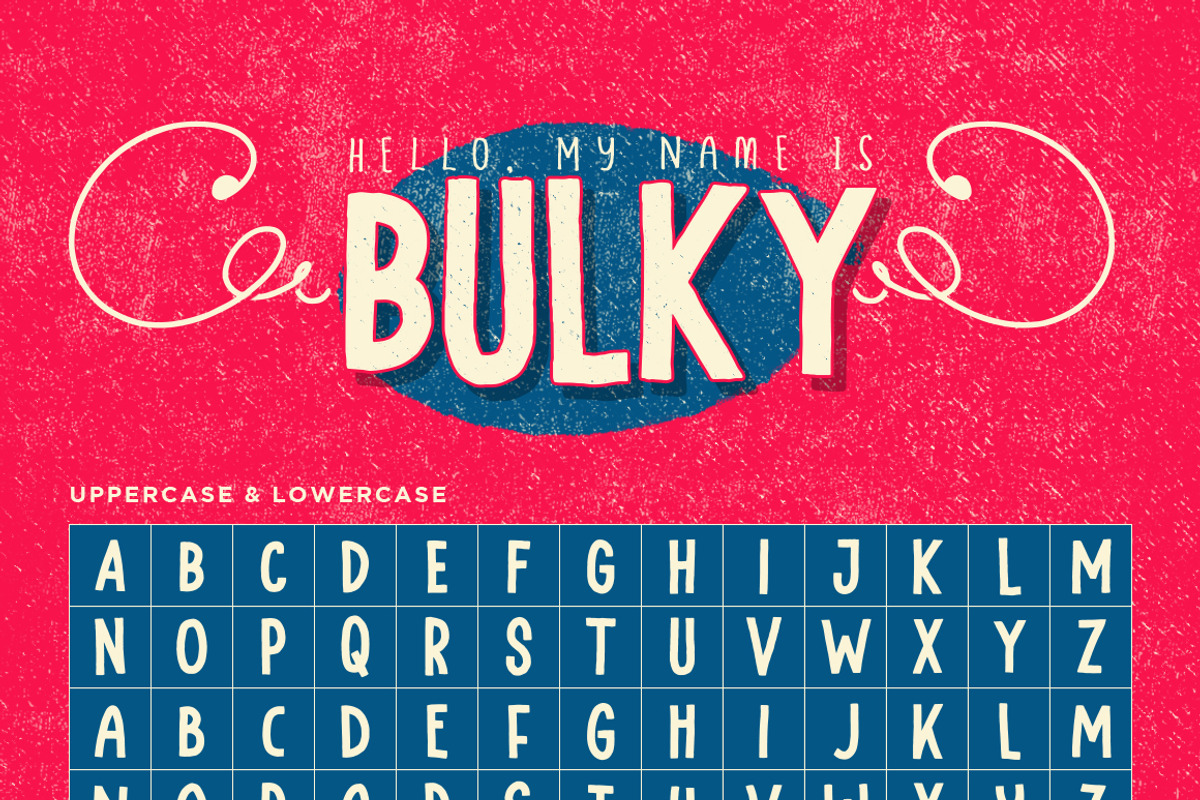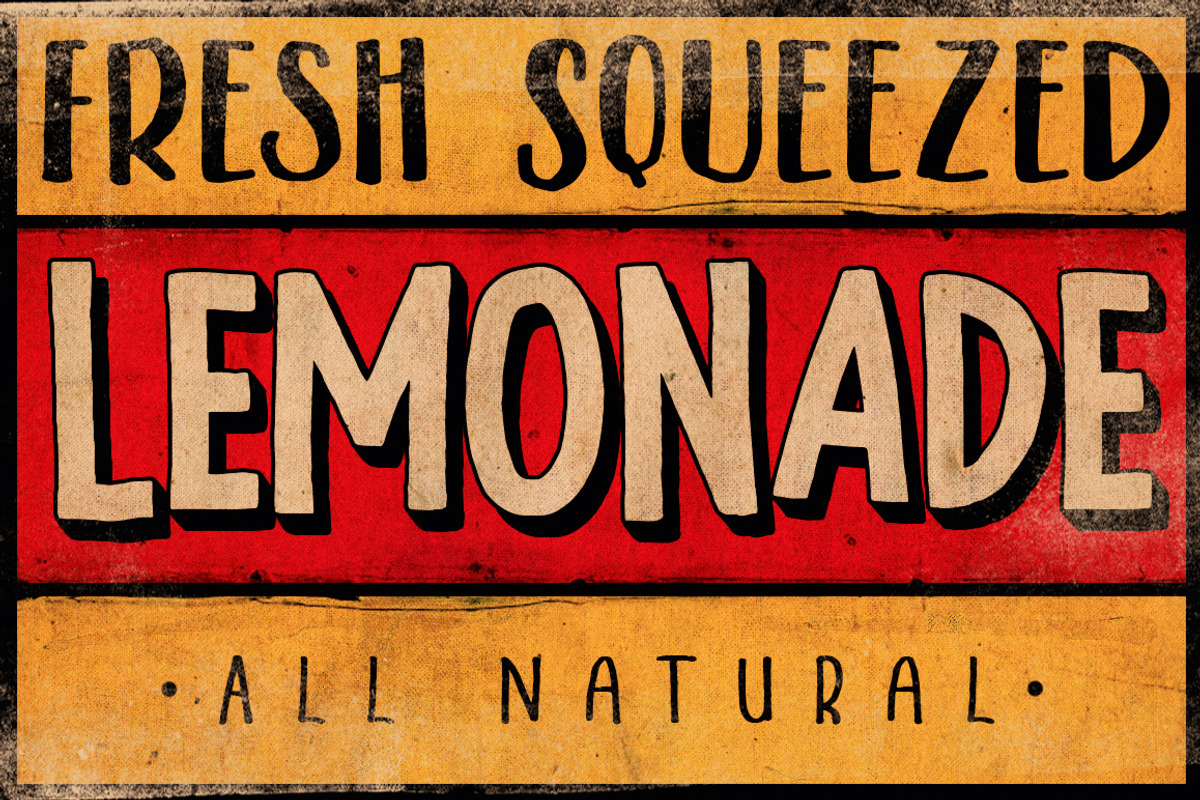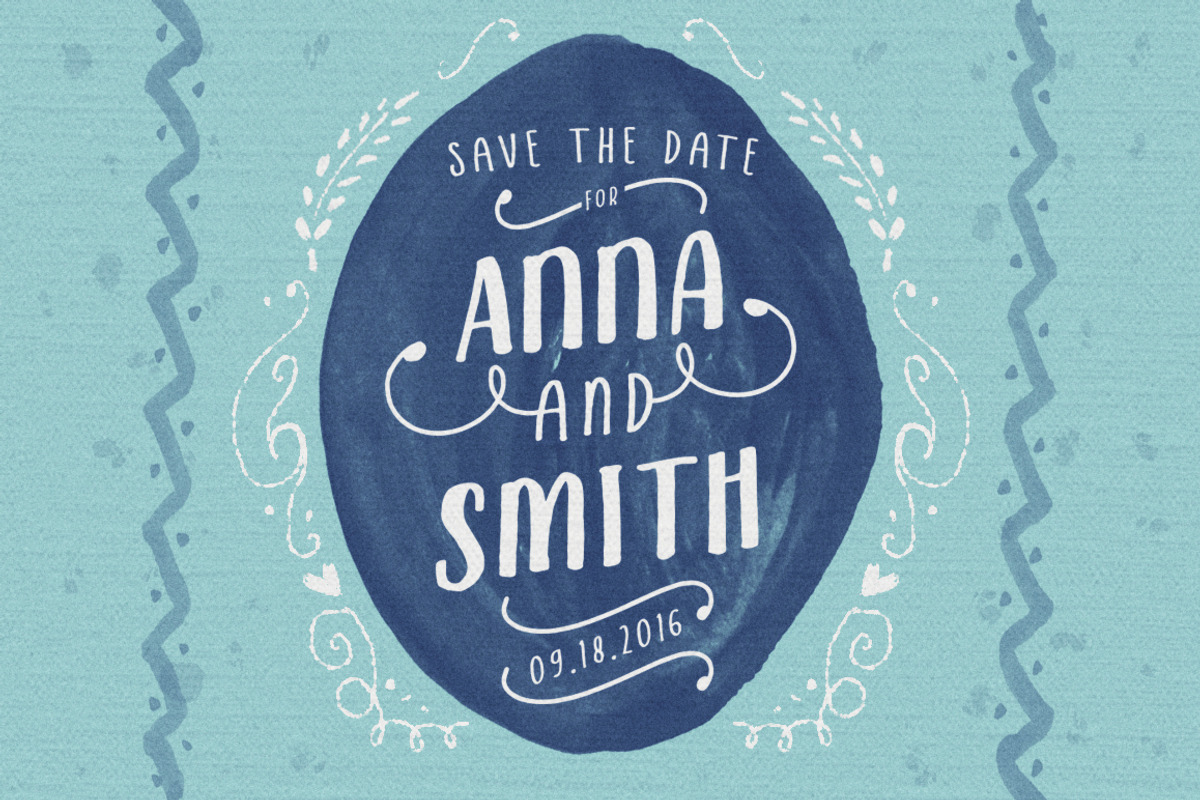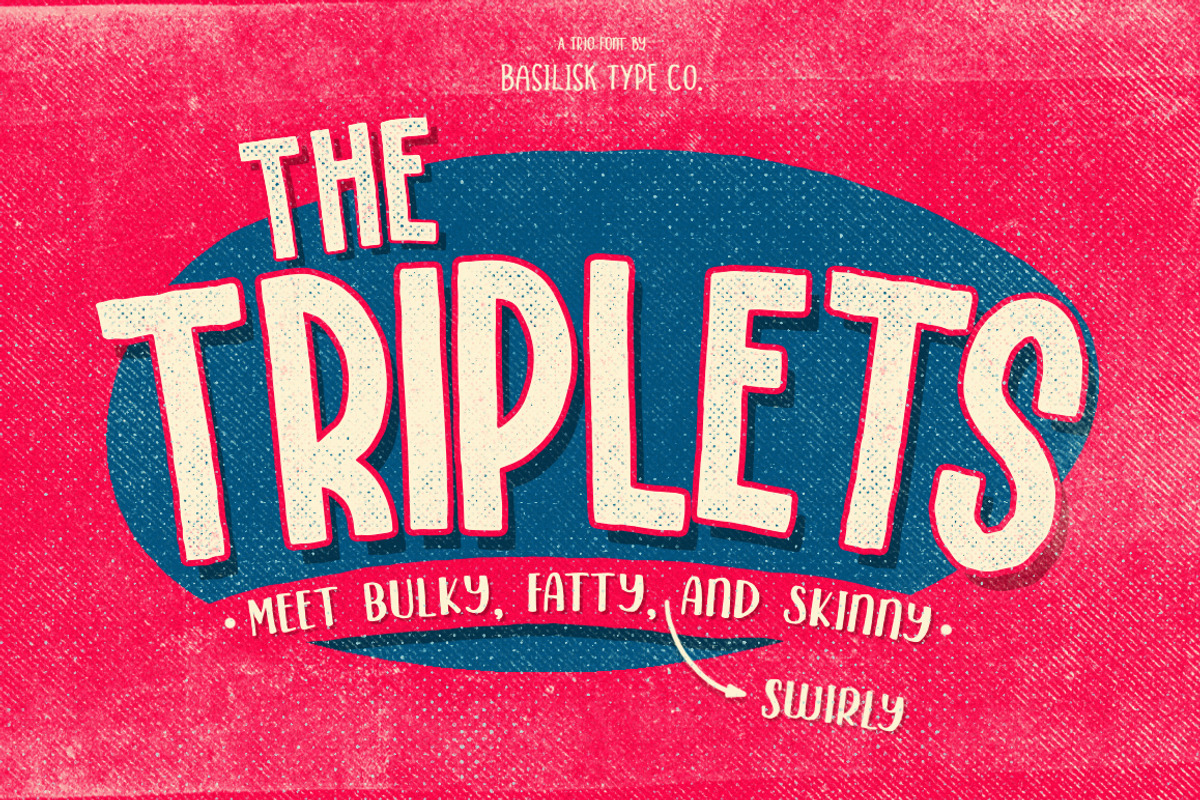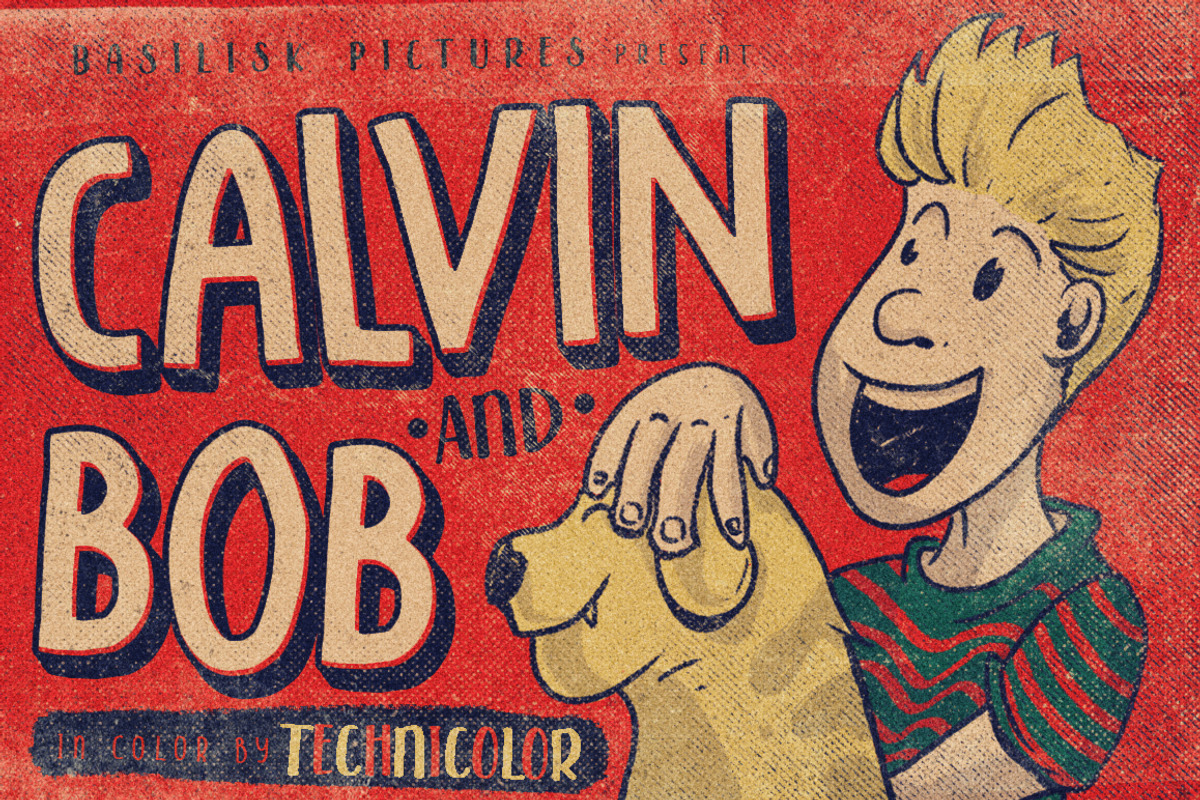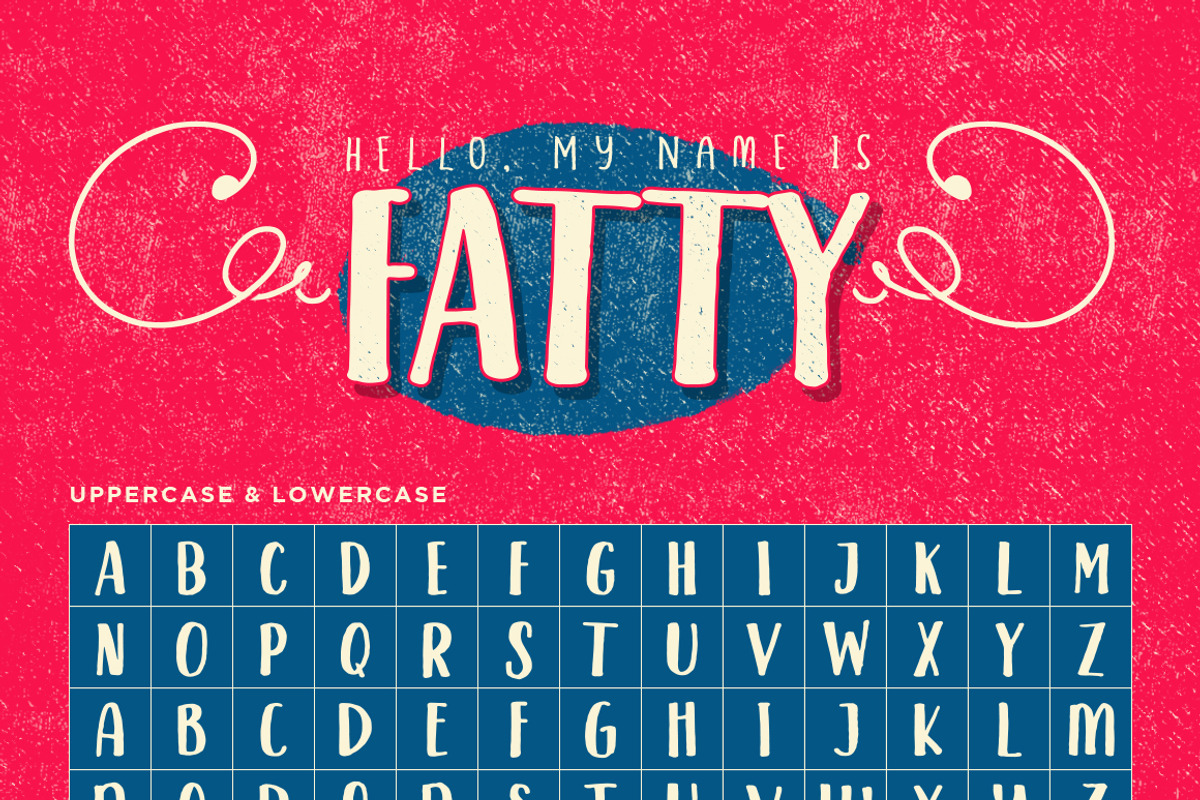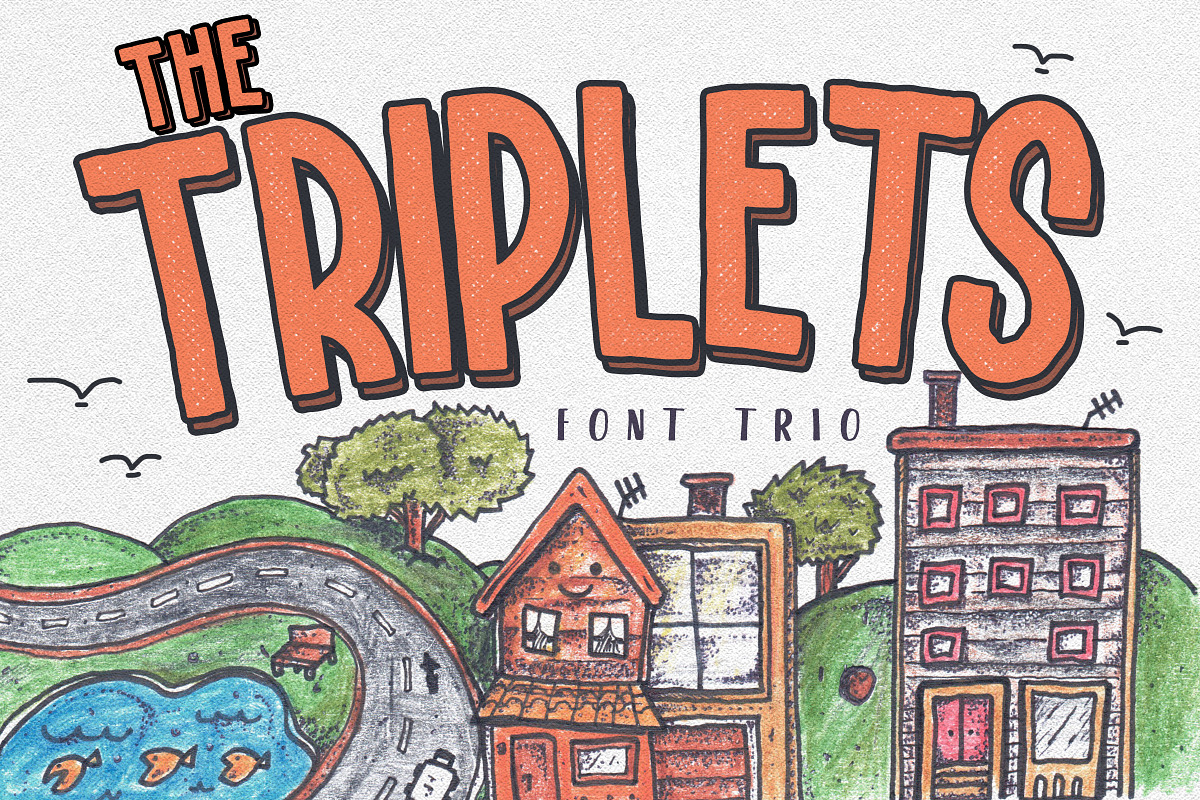
The Triplets - Font Trio
The Triplets - Font Trio by Basilisk Type is a font selected for branding, posters, packaging, typography.
- Its all 100% hand-drawn so you don't need to worry about the authenticity of the handmade-vintage-letteringy stuff if you use this babies in
Why The Triplets - Font Trio is worth a look
The Triplets - Font Trio by Basilisk Type fits naturally into Branding, posters, packaging, typography.